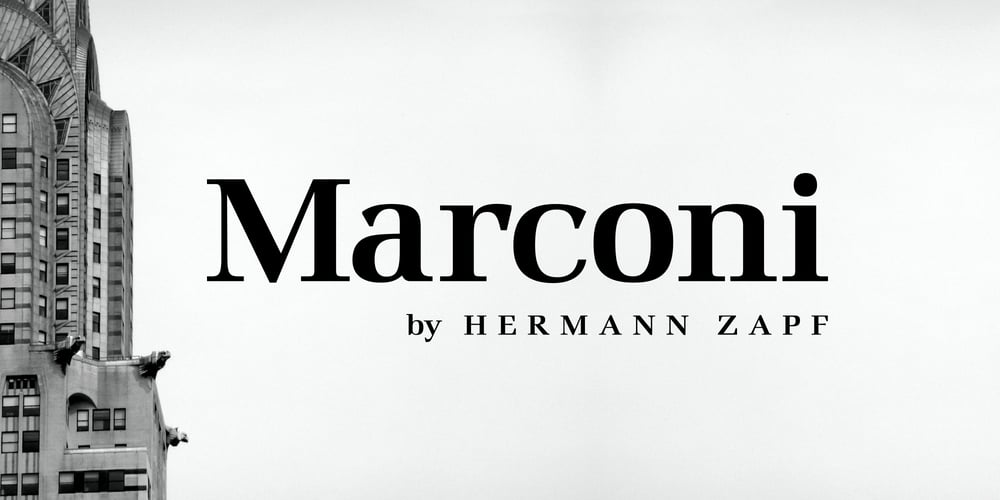
Marconi Font Family was designed by Hermann Zapf and published by Linotype. Marconi contains 4 styles and family package options. Marconi was created by Hermann Zapf in 1973. According to Gerard Unger, it was the world’s first digital typeface. Zapf’s design was developed as a text face for books and magazines. The round forms of the Marconi follow the principle of the superellipse. The lowercase letters are enlarged as the result of reading tests, while the capital letters are slightly reduced. The 8-point size — normally used for newspapers — looks more like 9 1/2 points. Marconi is a legible typeface with its large and open lowercase letters. It is ideal for long text blocks in newspaper, book, and magazine production.